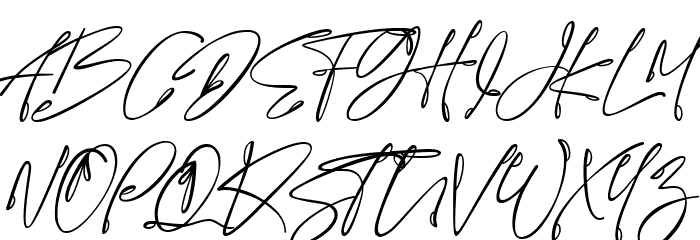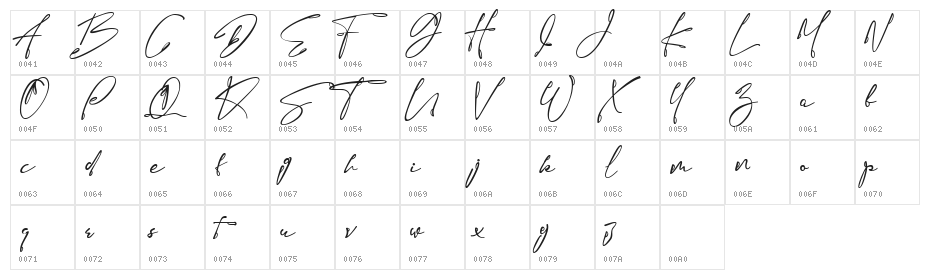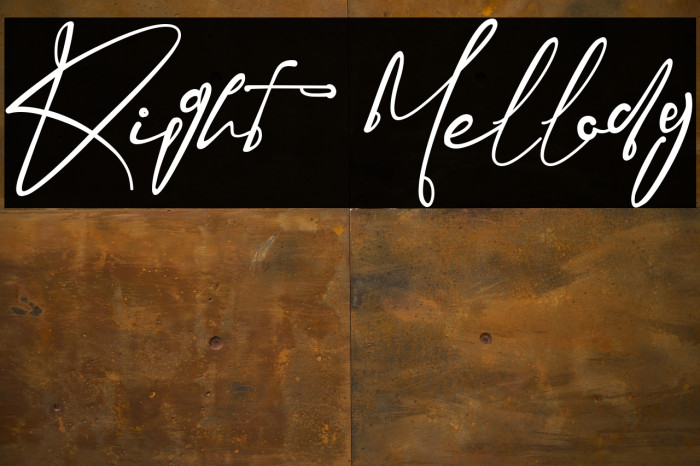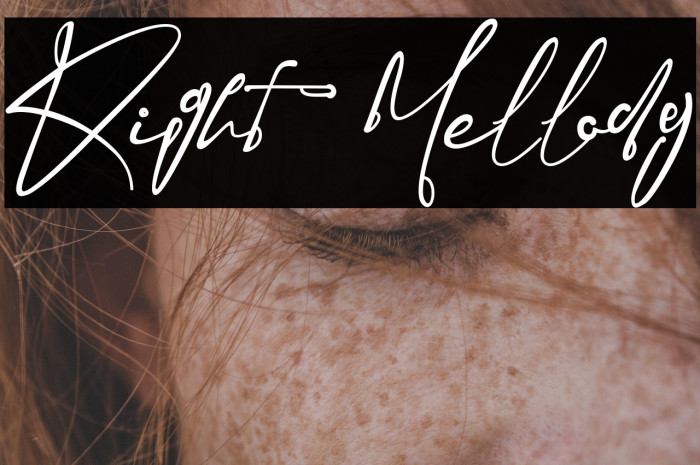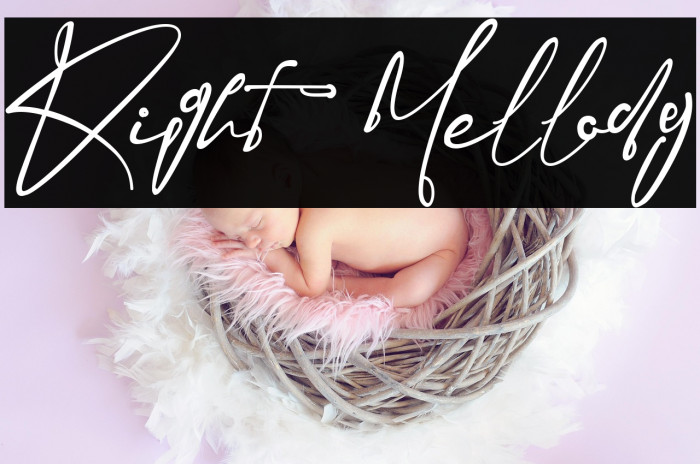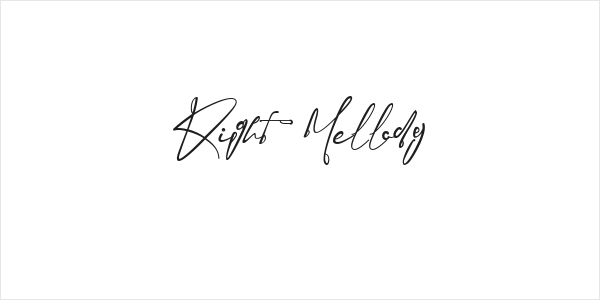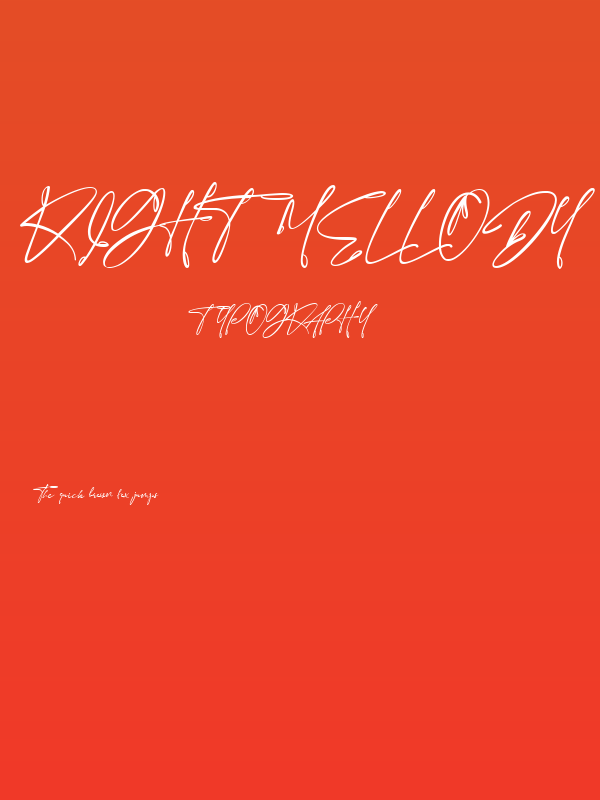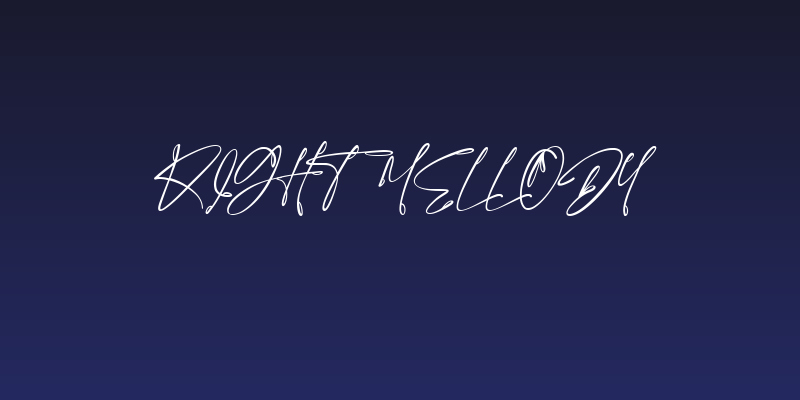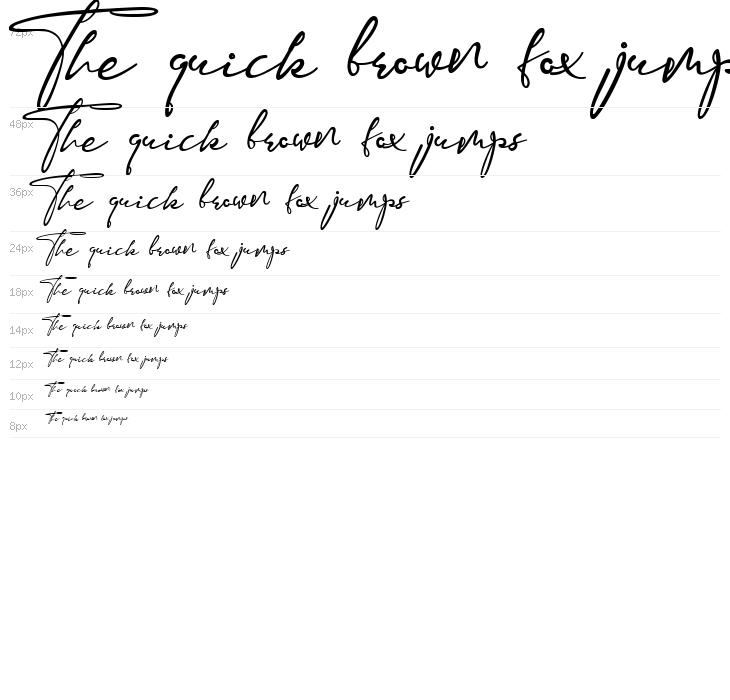
Right Mellody Font
Right Mellody Description
This font exudes a dynamic and expressive style, characterized by its flowing, cursive script that mimics the fluidity of handwriting. The uppercase and lowercase letters are intricately designed with loops and swirls, giving it a lively and artistic appearance. The strokes vary in thickness, adding a sense of movement and rhythm to the text. The overall design is elegant yet playful, making it suitable for creative and personal projects. The font maintains a consistent slant, enhancing its handwritten feel, while the spacing between characters is relatively tight, emphasizing its cohesive and connected nature.
| Proposed Projects | Ideal for wedding invitations, greeting cards, personal branding, and artistic projects. |